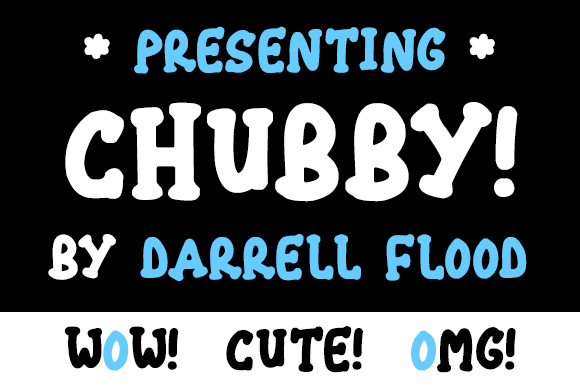
Chubby Font
About Chubby Font
Chubby is a wonderfully thick stroked, playful font in a chunky serif style. This font is perfect for funny cartoonish themes!